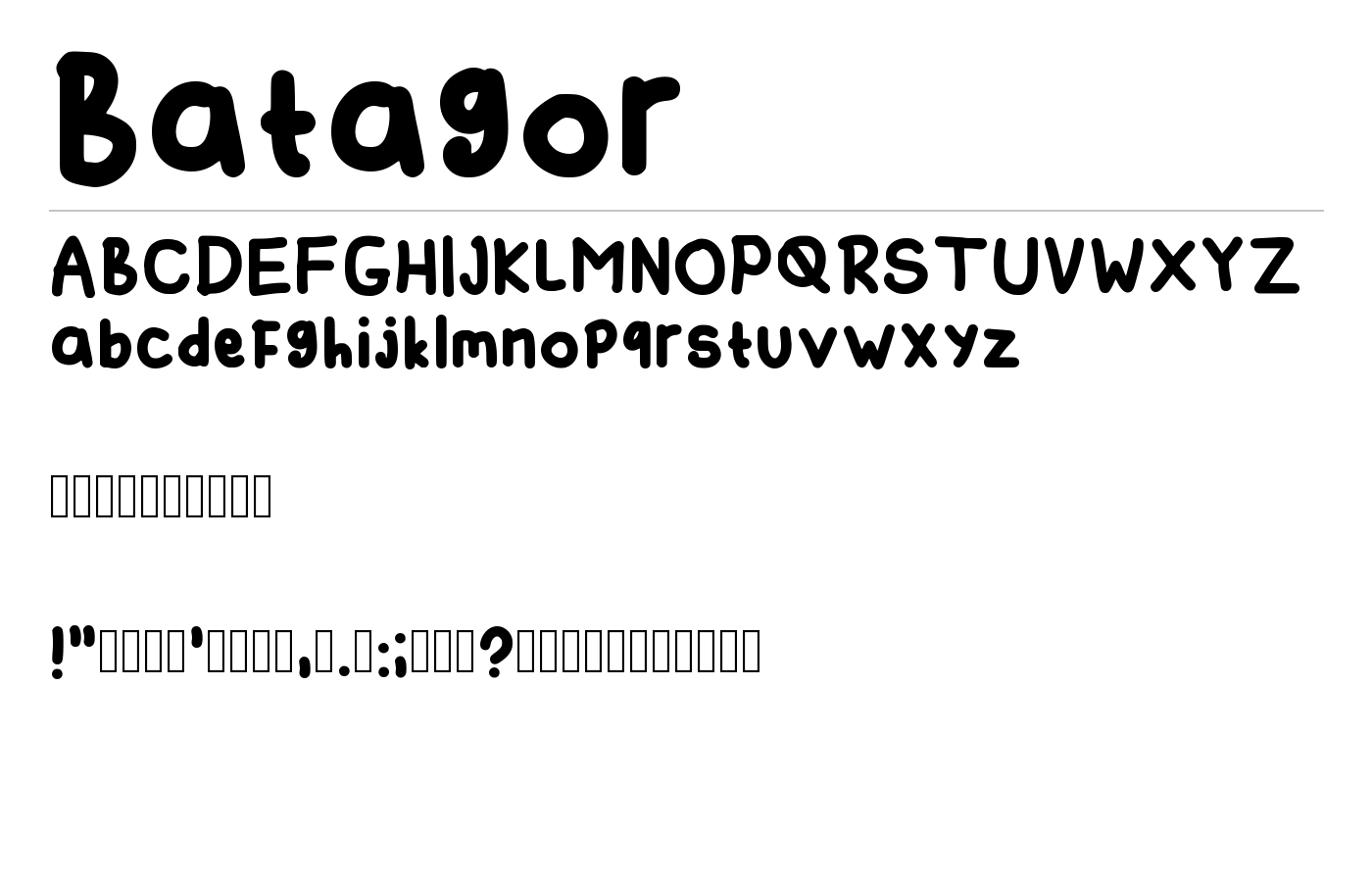
Batagor is a playful and informal sans serif font with rounded, chunky letterforms that give it a friendly and approachable feel. Its irregular stroke width and quirky shapes make it ideal for casual, creative projects like children's books, fun branding, or eye-catching headlines. This font works best where a lively, handwritten style is desired to convey warmth and personality.
Batagor Font
About Batagor Font